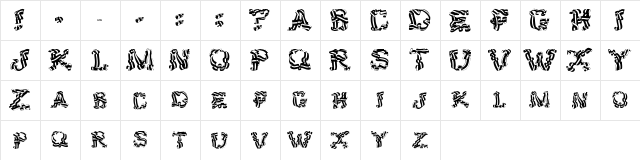
RC All American Regular
Design Context for RC All American Typeface
RC All American is a composed and adaptable typeface that performs quietly and consistently across a wide range of design contexts.